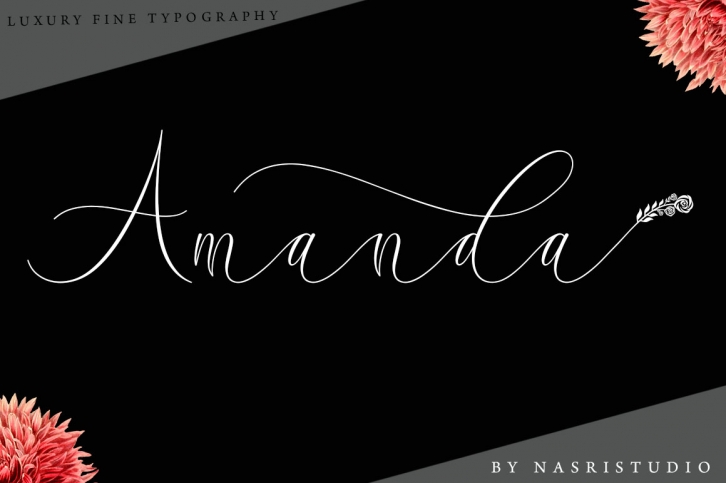
Amanda is a trendy and unique font with an authentic style. It was designed by Nasristudio and it's a great choice for creative people who need such a font. It was released on March 20, 2019 and the file size is 15.26 MB. Amanda will add an organic vibe to any design idea!